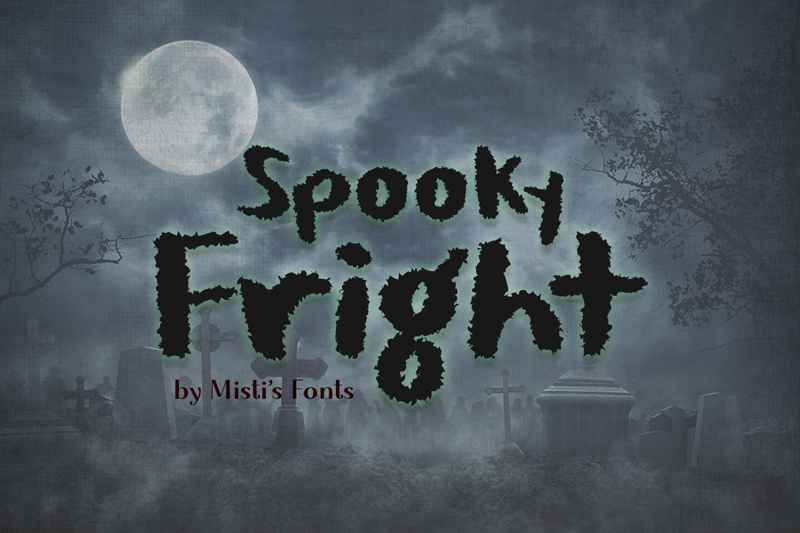
Font name: | Spooky Fright |
Spooky Fright is a whimsical, chalk-like typeface that is perfect for your Halloween projects. Looks great on posters, website banners, advertisements and so much more! It would also look amazing for haunted house signs, horror-themed creations, and other spooky designs. Terms Of Use and Commercial Licensing: https://mistifonts.com/spooky-fright/ |